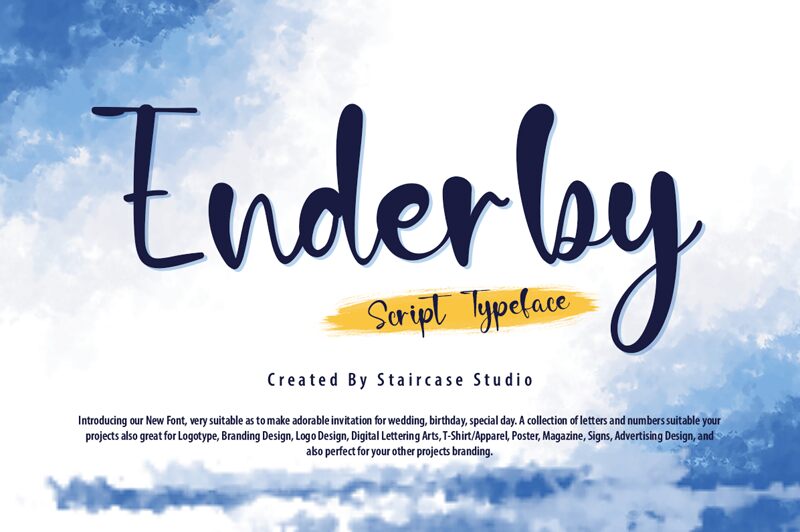
Elevate your design game with Enderby, the exquisite handwritten font by Staircase Studio. The fluid strokes and varied widths of this typeface add a touch of elegance to any project, whether it's a wedding invitation, restaurant menu or social media post. Capture the essence of romance with Enderby's delicate curves or create an artsy vibe for your branding with its playful flair. With its versatility, this stunning font can be used on anything from logos to book covers. Take your designs to new heights with Enderby and make a lasting impression on your audience.
Enderby